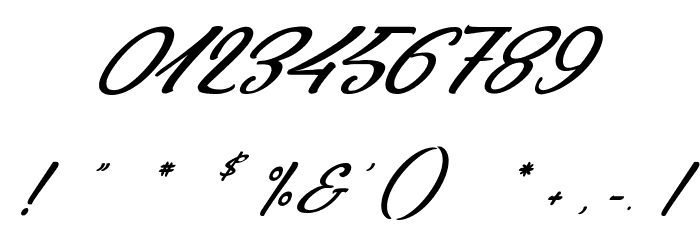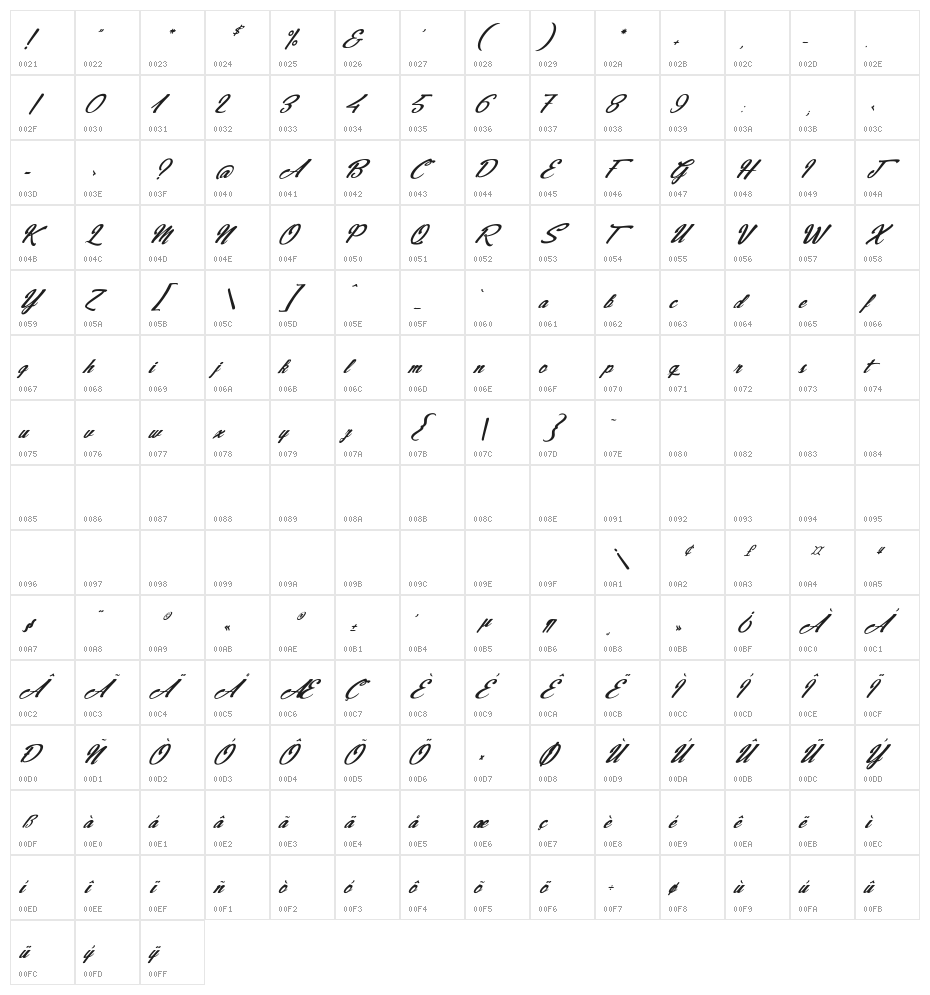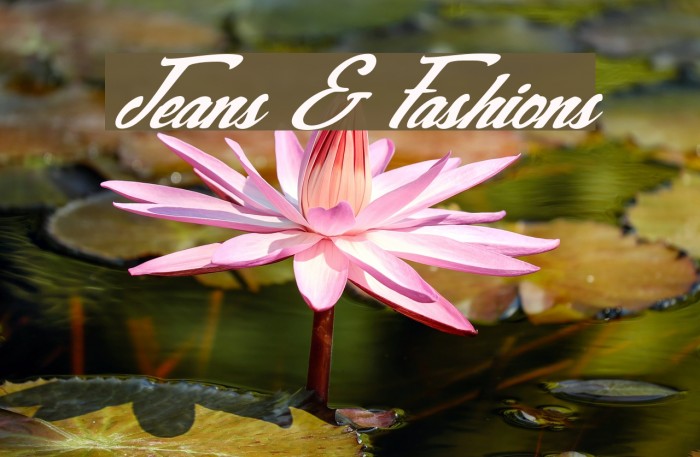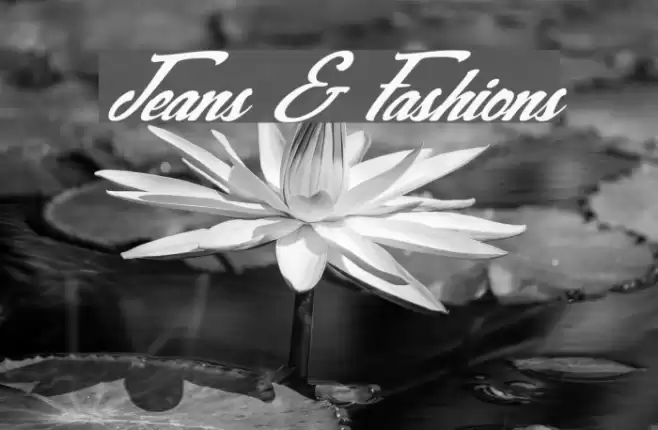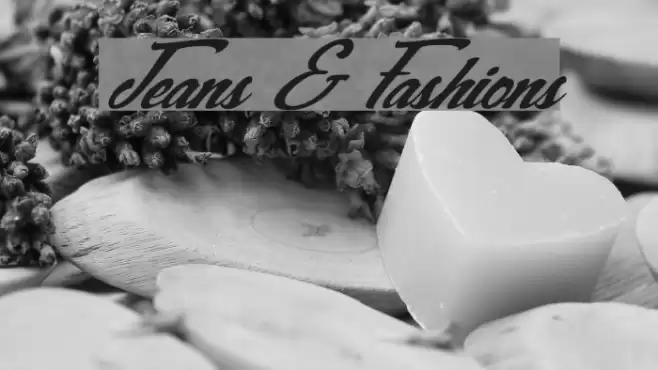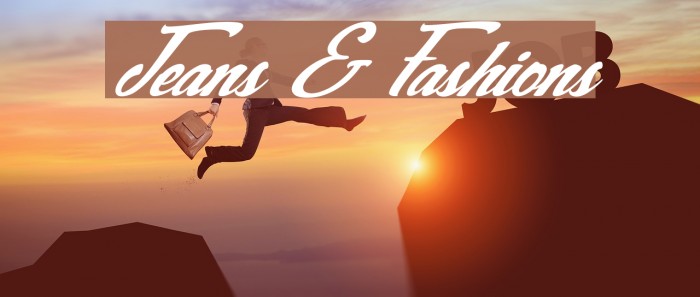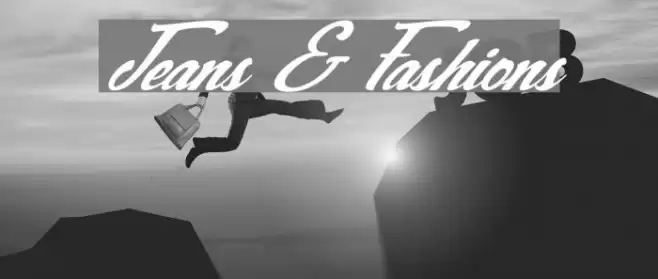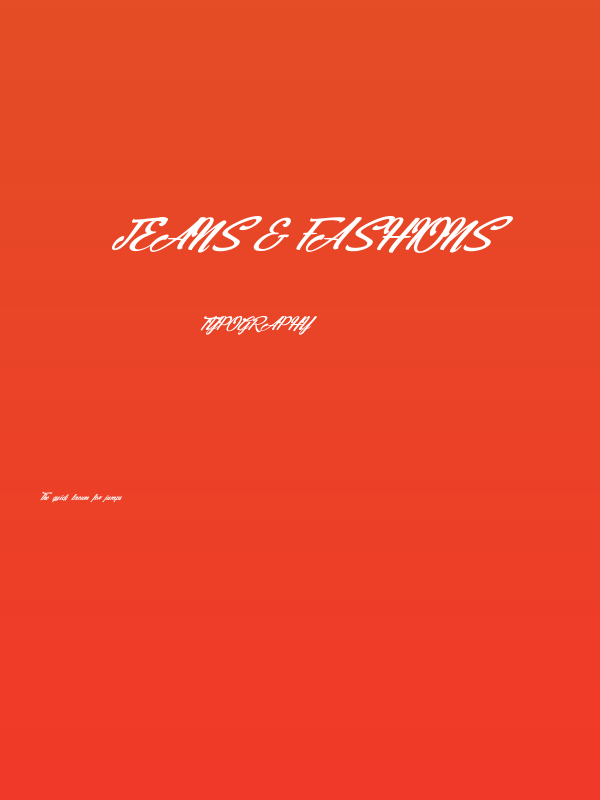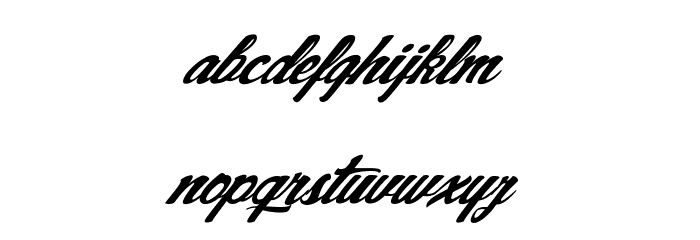
Jeans & Fashions Font
Jeans & Fashions Description
This font exudes a dynamic and energetic style with its bold, cursive script. The letters are interconnected, creating a fluid and continuous flow that adds a sense of movement and elegance. The strokes are thick and expressive, with a slight slant that enhances the cursive nature. The uppercase letters are particularly striking, with dramatic flourishes and loops that give them a decorative flair. The lowercase letters maintain the same level of expressiveness, ensuring consistency throughout the typeface. Numbers and special characters are designed to match the overall aesthetic, making this font versatile for various applications.